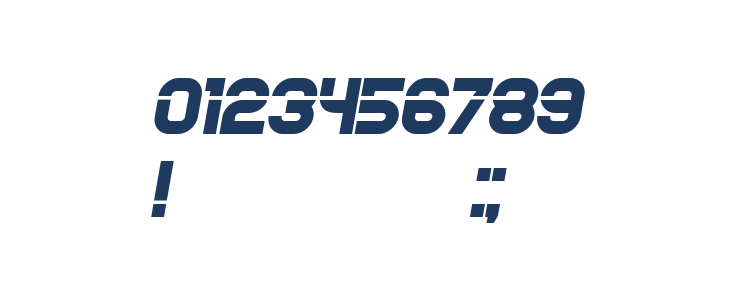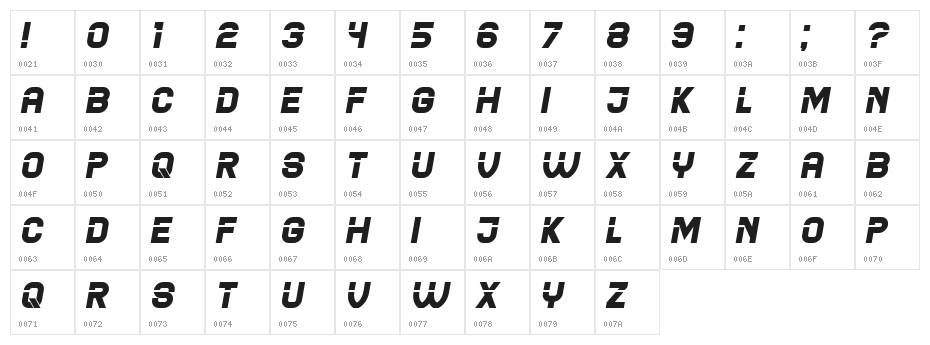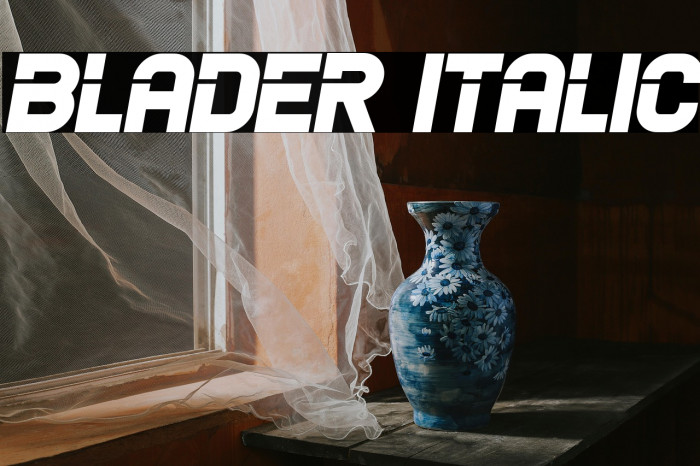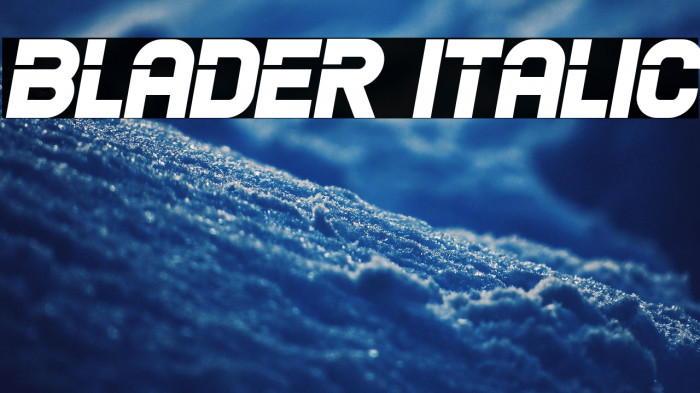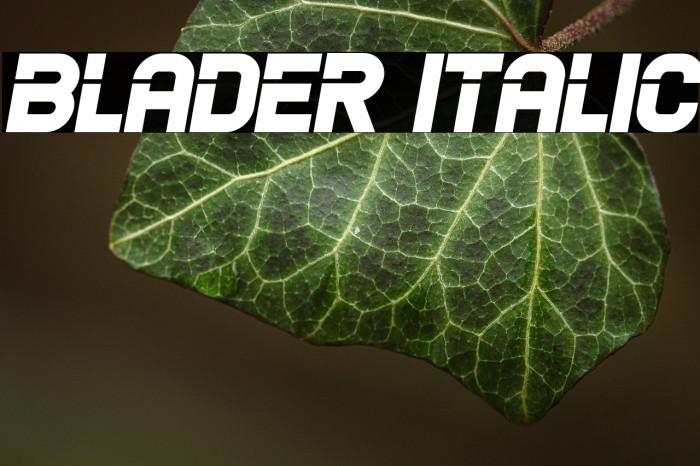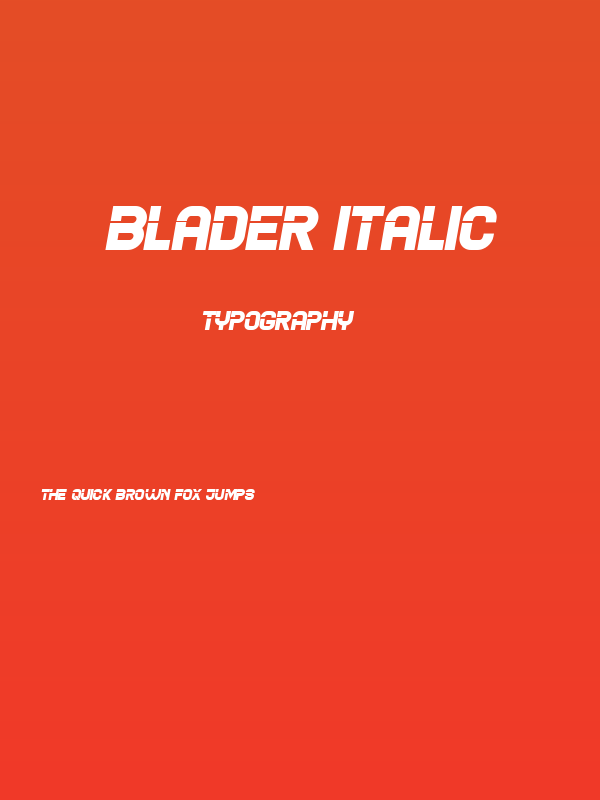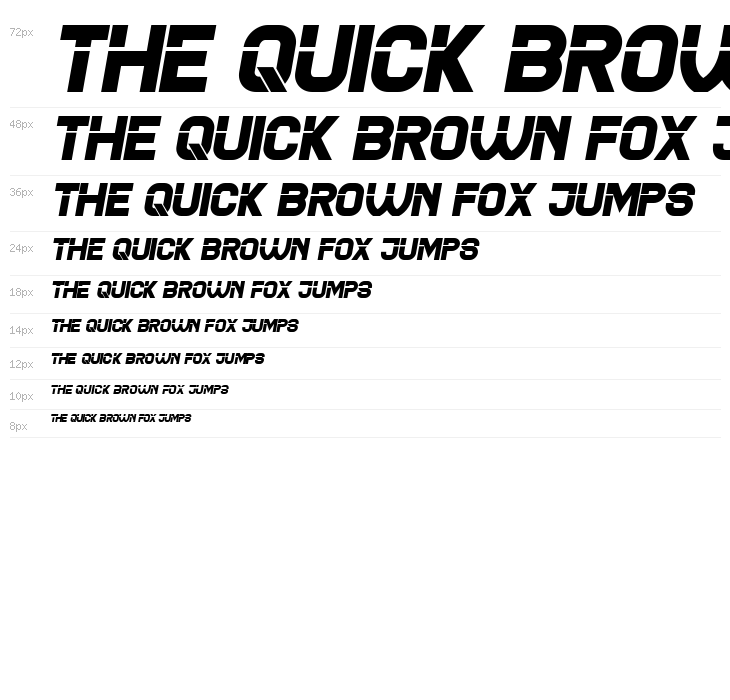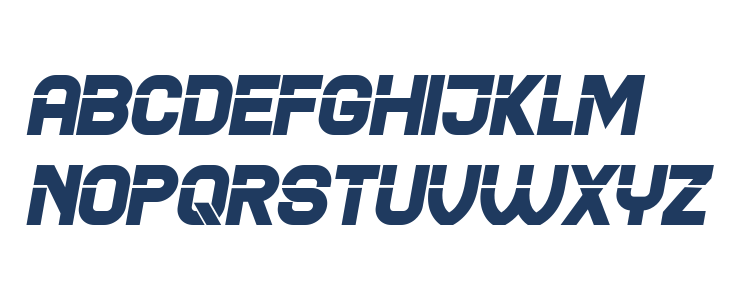
Blader Italic Font
Blader Italic Description
This font features a bold and dynamic italic style, characterized by its strong geometric shapes and sharp angles. The letters are slightly slanted, giving a sense of motion and energy. The strokes are thick and consistent, providing a robust and impactful appearance. The overall design is modern and sleek, suitable for making a statement. The numbers and special characters maintain the same boldness and angularity, ensuring uniformity across all glyphs. This font is ideal for projects that require a futuristic or sporty aesthetic.
Proposed ProjectsIdeal for sports branding, futuristic designs, posters, and dynamic headlines.